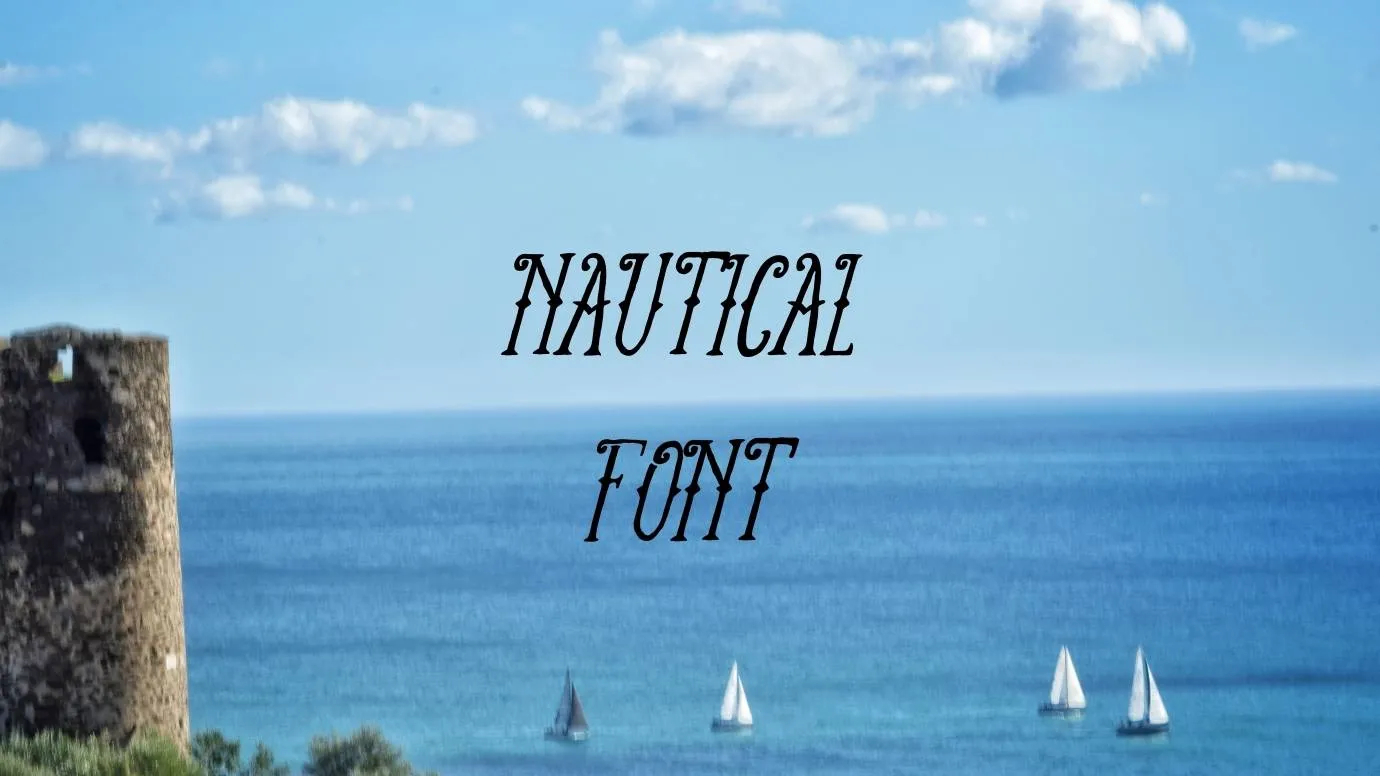
Nautical Font Family is a fundamental font guaranteed to add beauty to any location. With its comprehensive package suited for any design project, this font is the perfect choice.
It was designed and shared by a remarkable graphic designer named Denzel Designs. This font has been designed based on the water waves motion and he took some inspiration from such things.